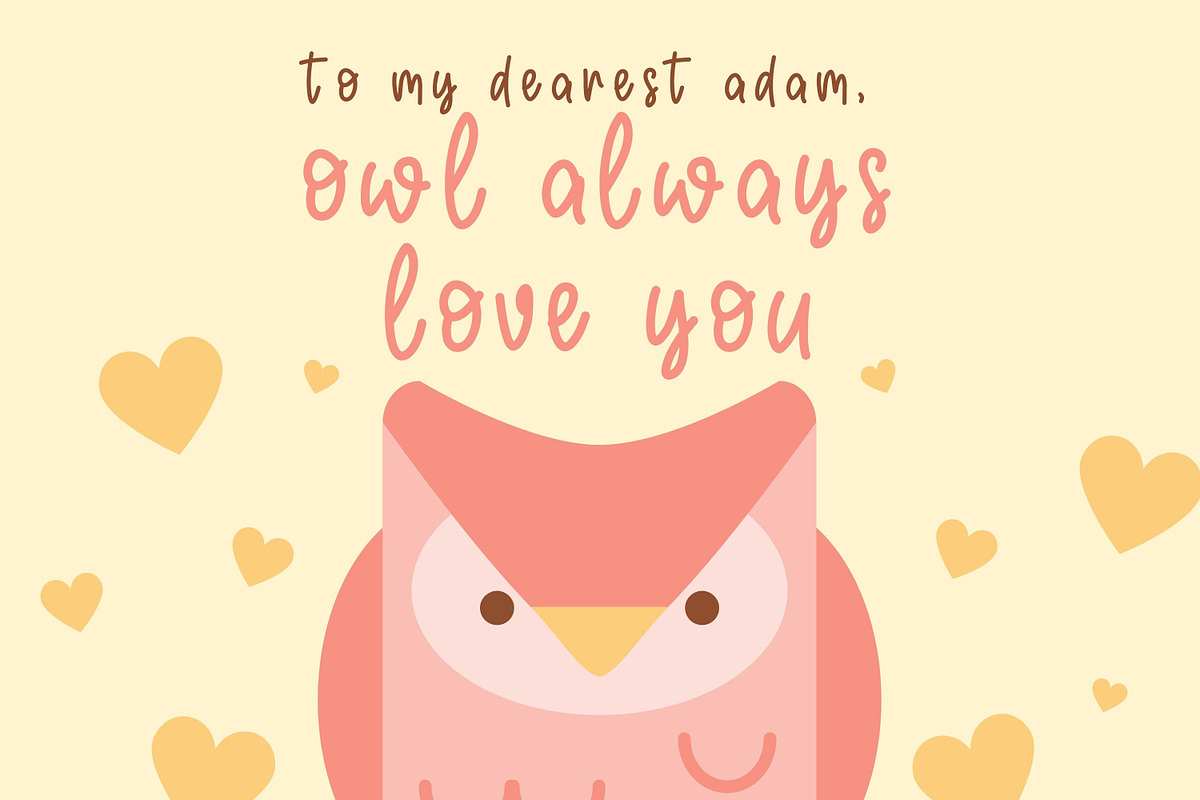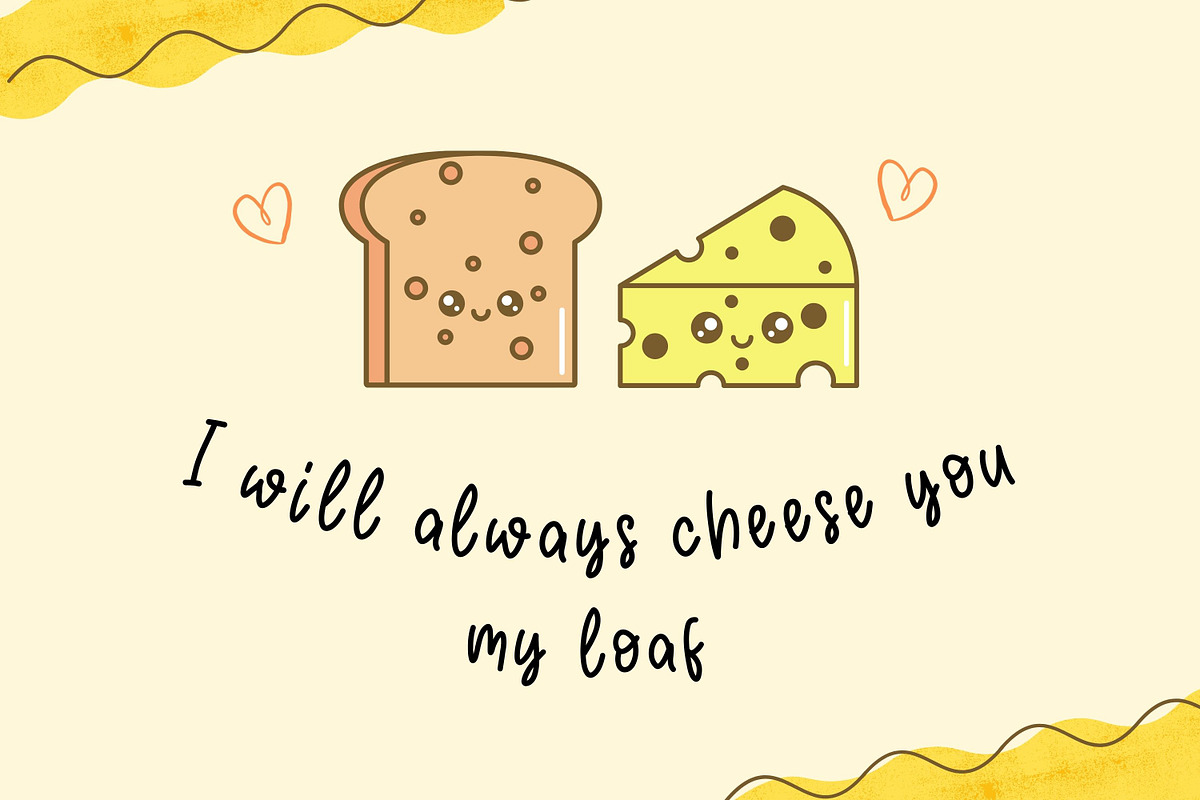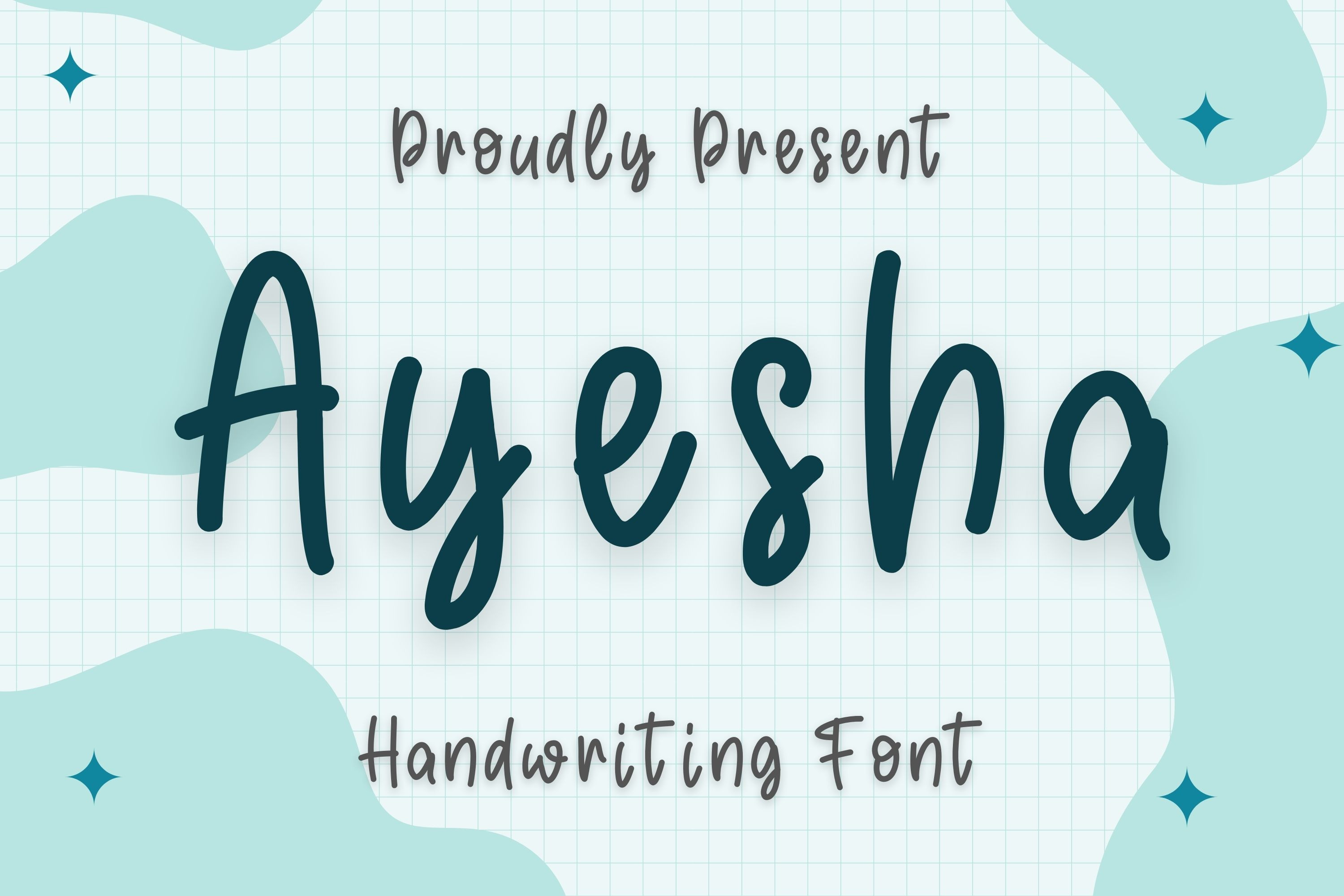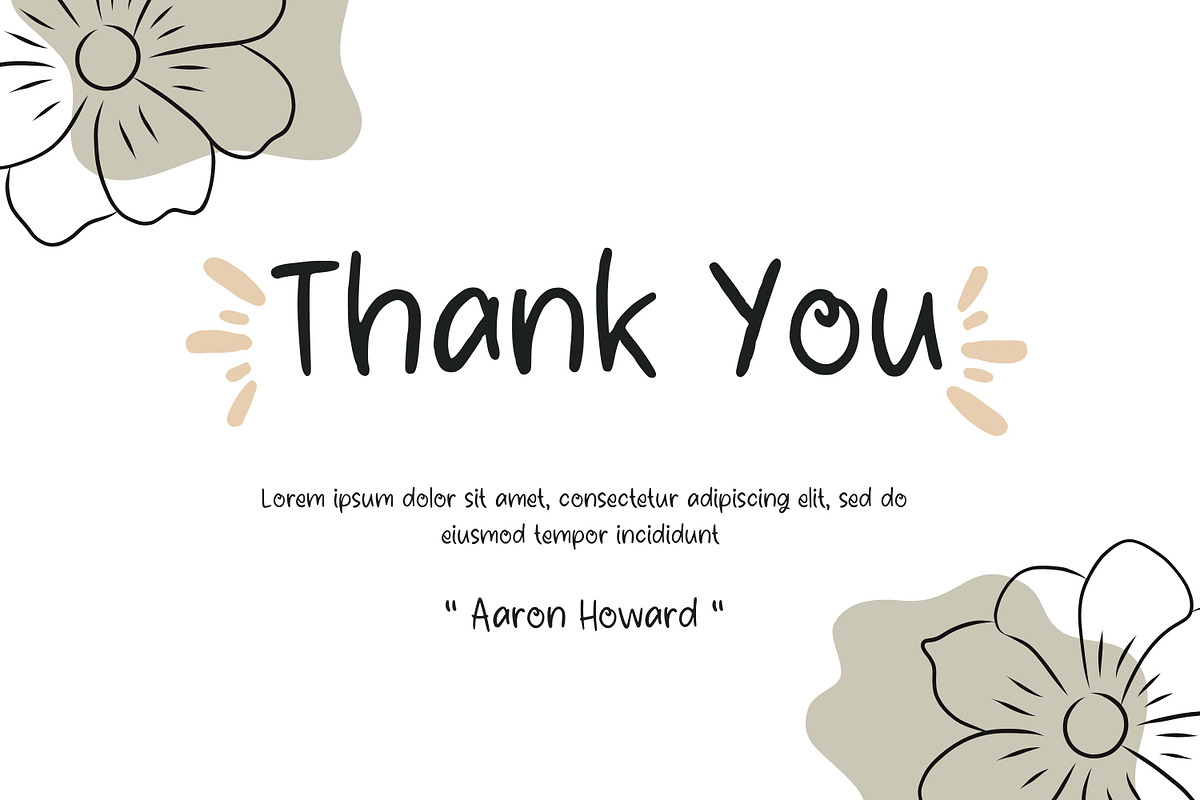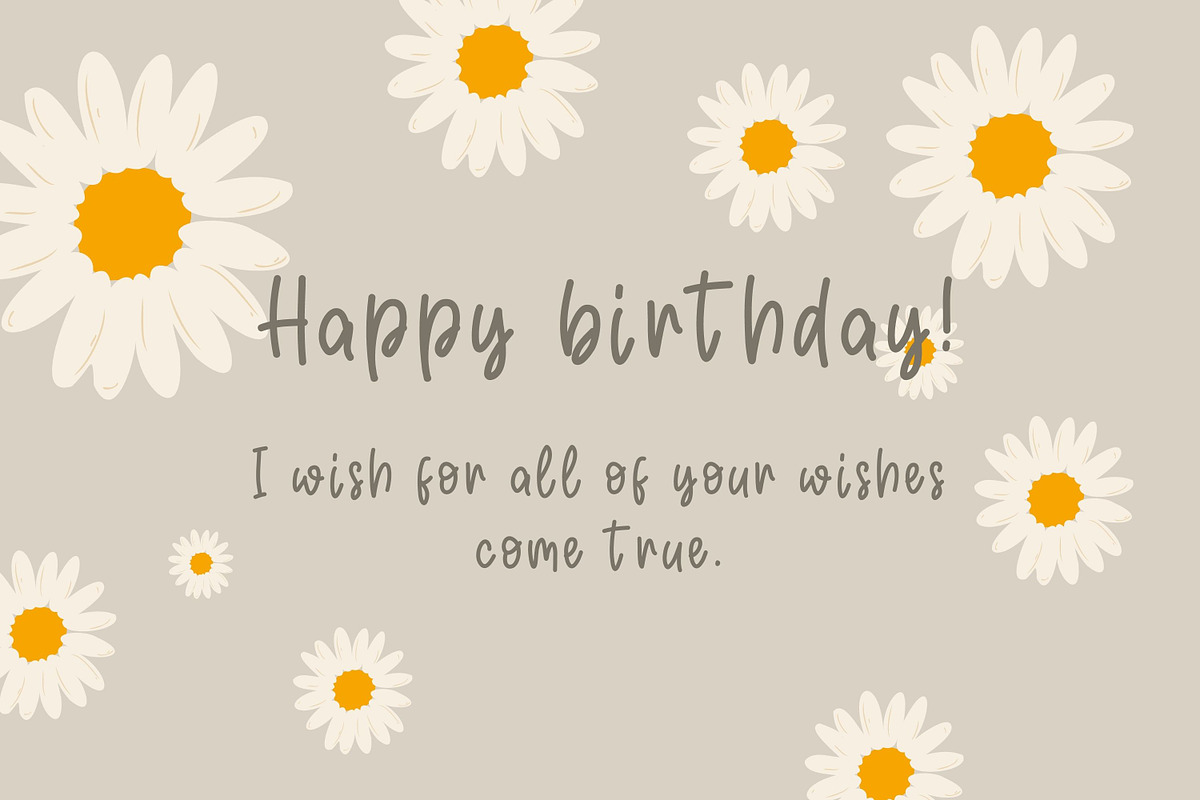
Ayesha Font
Ayesha handwritten font is an elegant and creative typeface that features smooth, cursive script with hand-drawn characters and digital refinement. With its flowing lines and high level of detail, this font is perfect for a wide range of design projects, from invitations to logos.